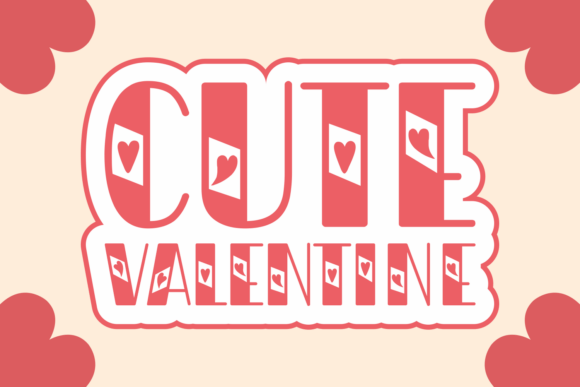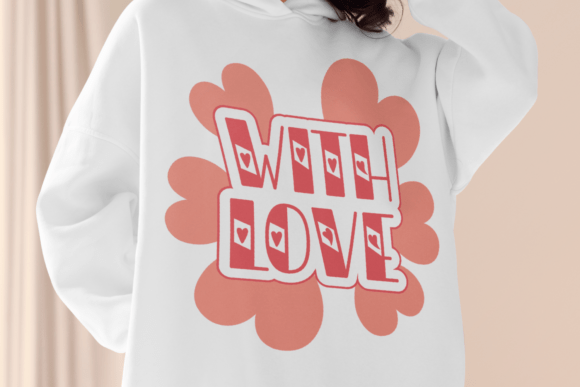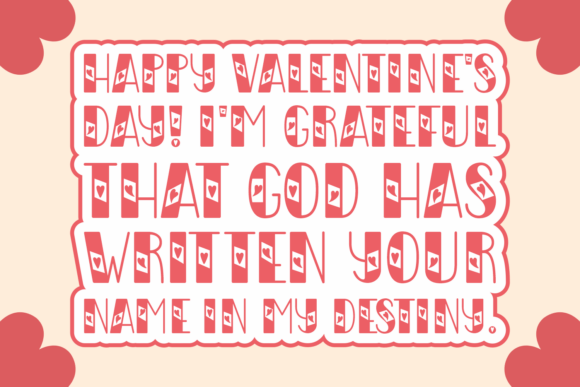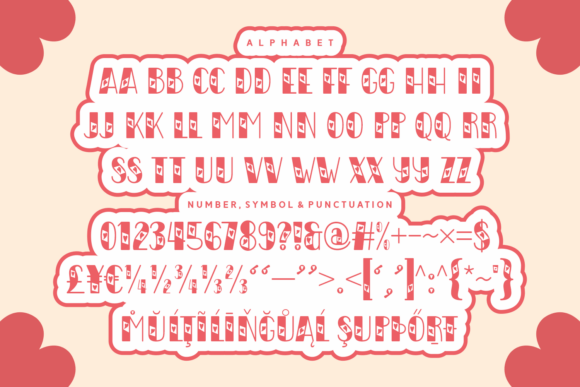
Discover the Charm of “Feeling Card” Font: A Sleek and Romantic Typeface
Are you searching for a font that embodies the essence of romance and love? Look no further than “Feeling Card” – a stunning typeface that exudes a sense of wedded bliss and Eastern European charm. This beautiful font is perfect for Valentine’s Day, anniversaries, and all things amorous. Its unique appeal and authentic freshness make it an ideal choice for designers and crafters looking to add a touch of elegance to their creations.
A Font that Captivates with its Unique Appeal
The “Feeling Card” font boasts a distinct Eastern European flair that sets it apart from other typefaces. Its gentle smoothness and captivating charm make it perfect for a wide range of applications, from magazine covers and book designs to smart branding and brand design projects. Whether you’re looking to create romantic greetings cards, expressive posters, or eloquent quotes, this font is sure to add polish and sophistication to your designs.
Delectably Versatile and Seamlessly Adaptable
One of the standout features of the “Feeling Card” font is its delectable versatility. It seamlessly fits into myriad applications, making it an excellent choice for designers and crafters who need a font that can adapt to different projects. Use it to add heart to your apparel design, product packaging, invitations, and even labels. The possibilities are endless, and the “Feeling Card” font is sure to become a staple in your typographical repertoire.
Effortlessly Construct Meaningful Greetings Cards and More
Words penned in the “Feeling Card” font effortlessly construct meaningful greetings cards, expressive posters, and eloquent quotes. The font’s clean simplicity and alluring pull make it perfect for creating designs that convey emotions and sentiments. Whether you’re a designer or a crafter, this font is sure to inspire you to create something beautiful and meaningful.
Certified Multilingual with Thoughtful Accented Characters
The “Feeling Card” font is certified multilingual, making it an excellent choice for designers and crafters who work with international clients or need to create designs for diverse audiences. The font features thoughtful accented characters, ensuring that your designs look professional and polished, regardless of the language or region you’re targeting.
Enhance Your Typographical Repertoire with “Feeling Card”
If you’re looking to enhance your typographical repertoire with a font that is both elegant and versatile, look no further than “Feeling Card”. This beautiful typeface is perfect for businesses or personal projects, and its clean simplicity and alluring pull make it sure to leave a lasting impression. Whether you’re a designer, crafter, or simply someone who appreciates beautiful typography, the “Feeling Card” font is an excellent addition to your collection.
Applications for “Feeling Card” Font
- Magazine covers and book designs
- Smart branding and brand design projects
- Apparel design and product packaging
- Invitations and labels
- Greetings cards and posters
- Quotes and typographical designs
In conclusion, the “Feeling Card” font is a sleek and romantic typeface that is perfect for designers and crafters looking to add a touch of elegance to their creations. Its unique appeal, versatility, and multilingual capabilities make it an excellent choice for a wide range of applications. Enhance your typographical repertoire with “Feeling Card” today and discover the charm of this beautiful font for yourself.